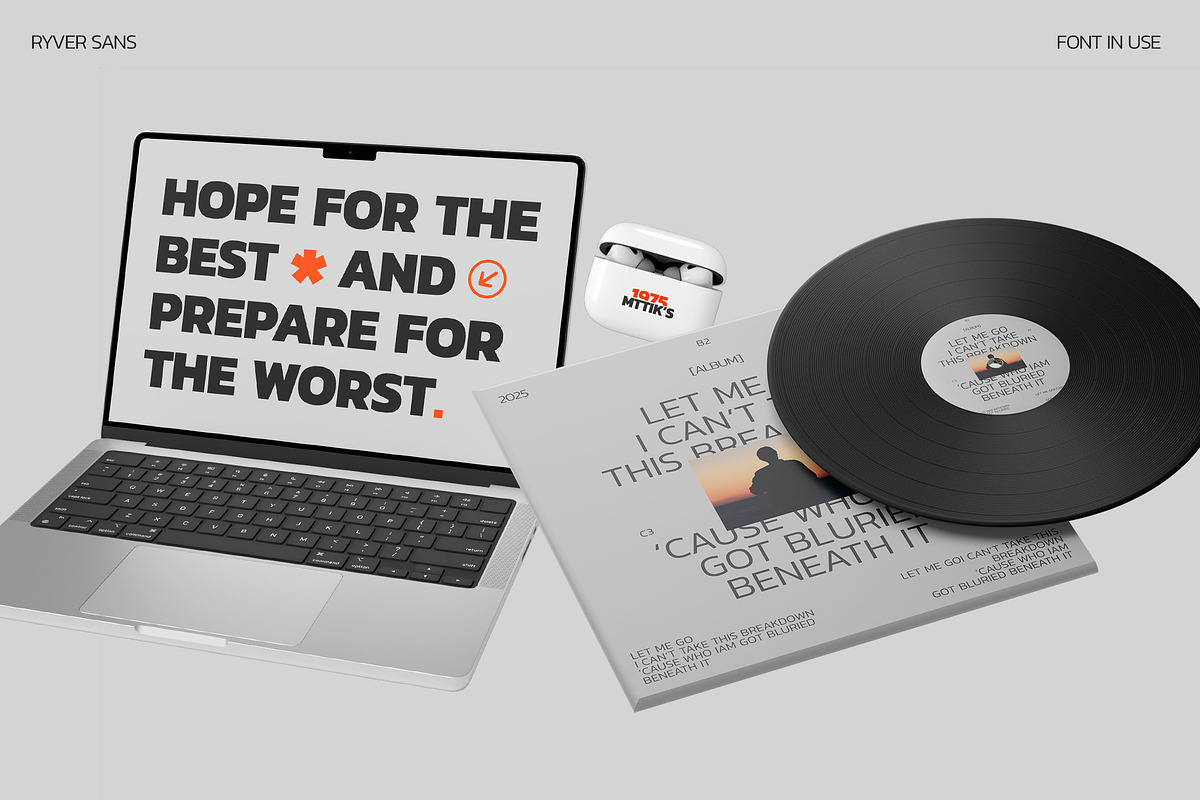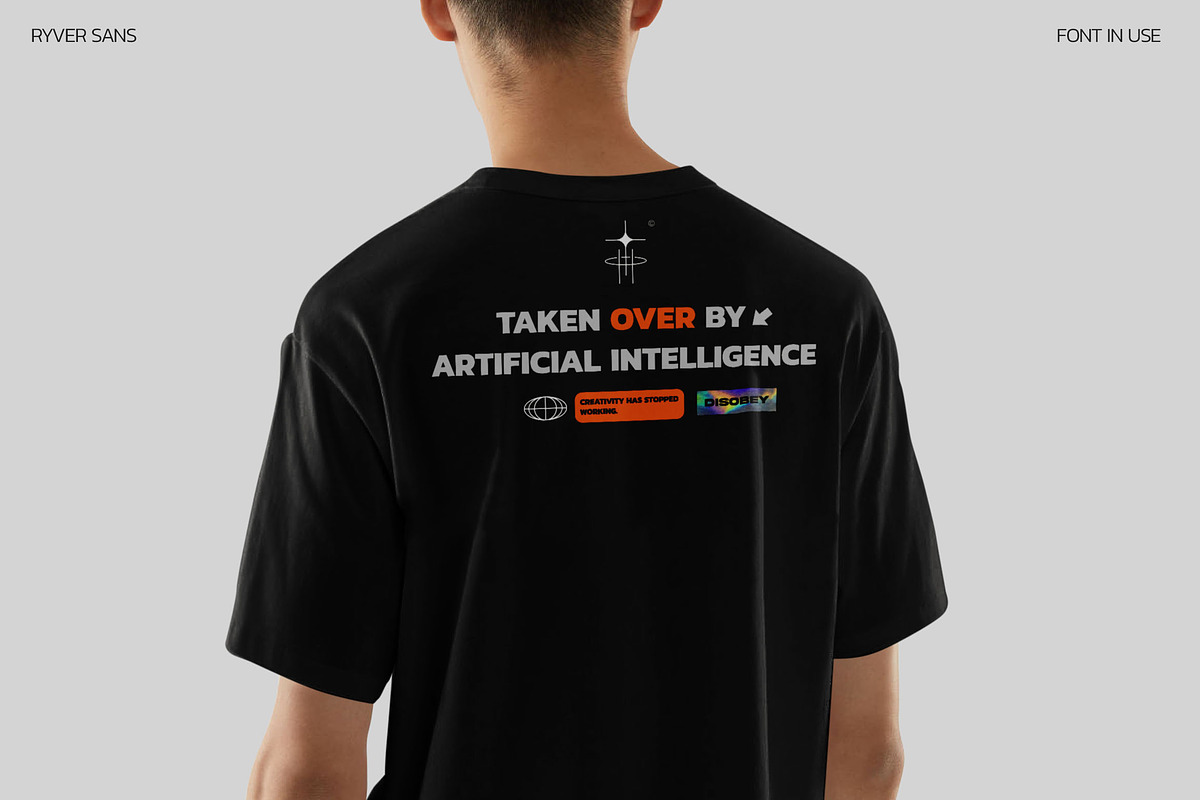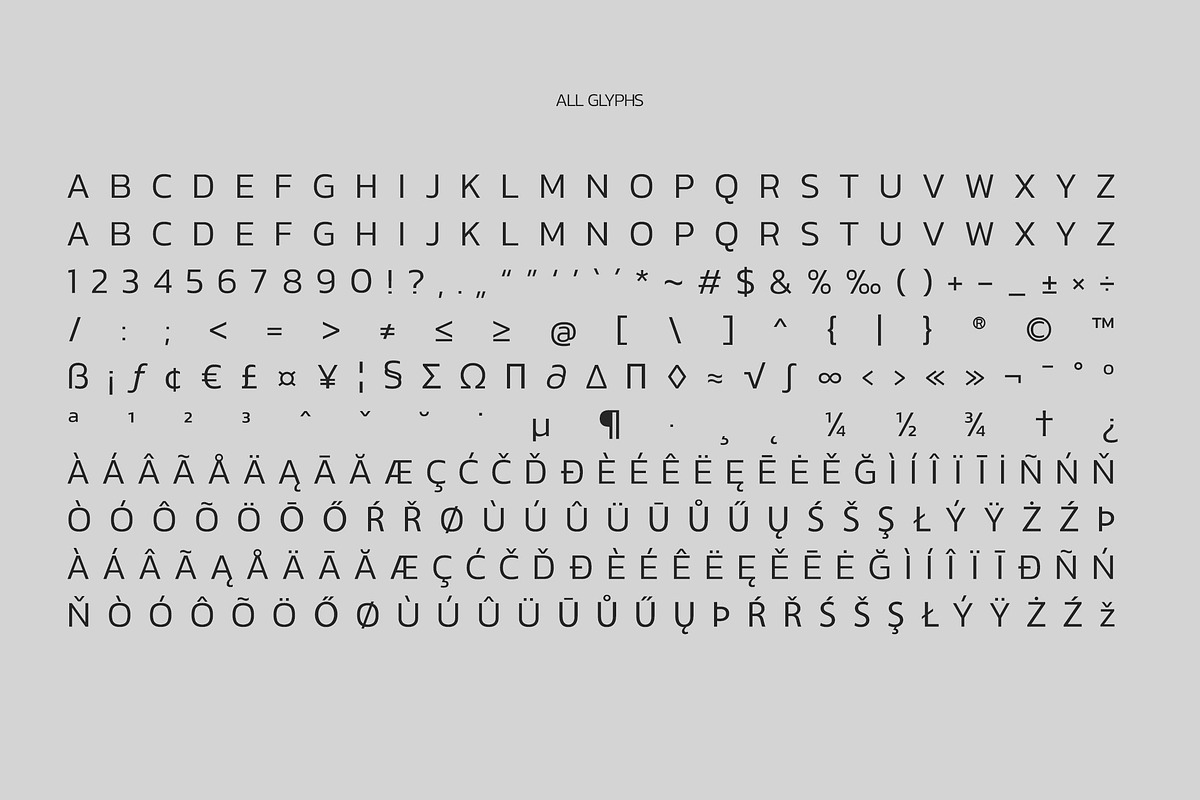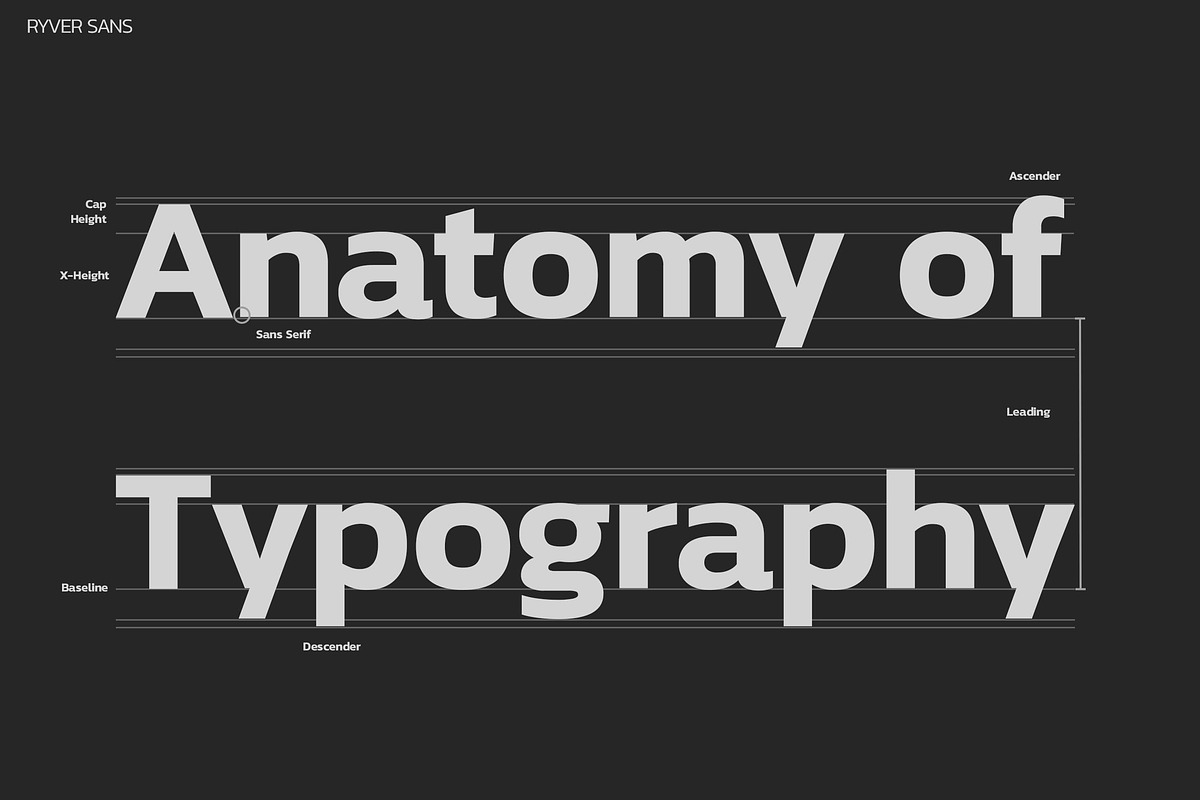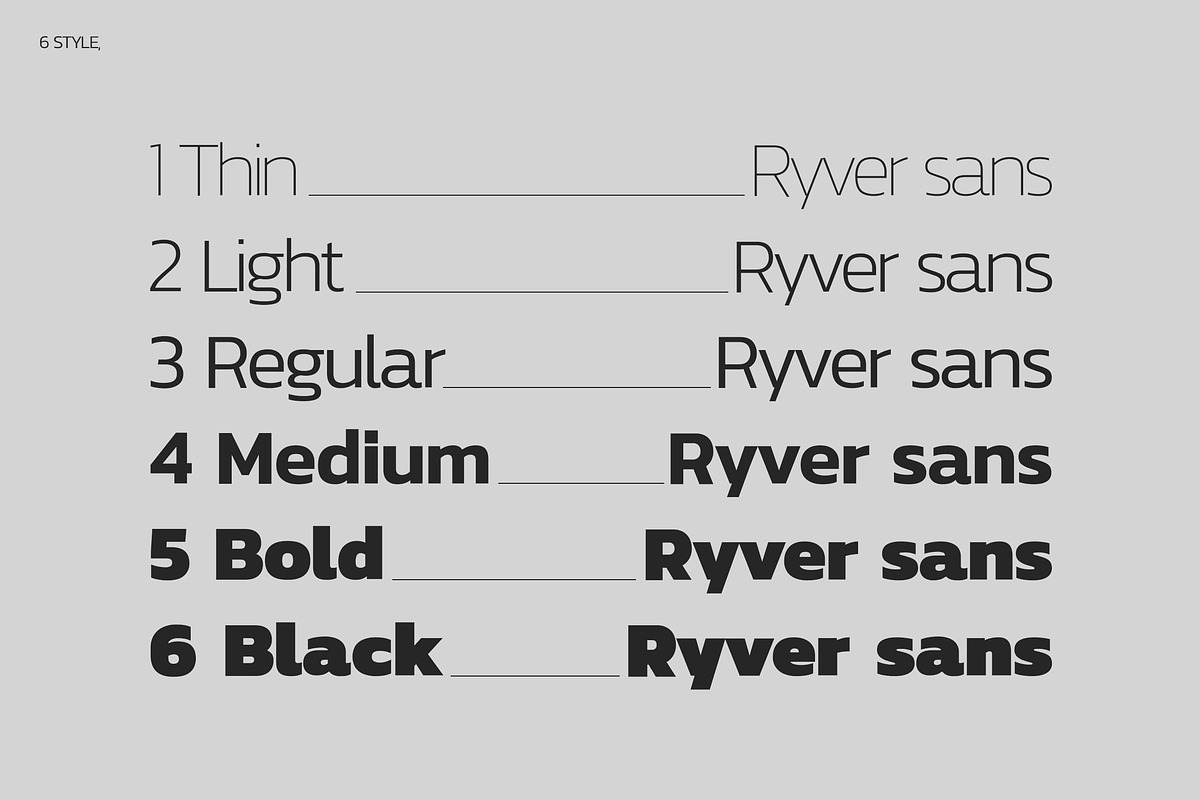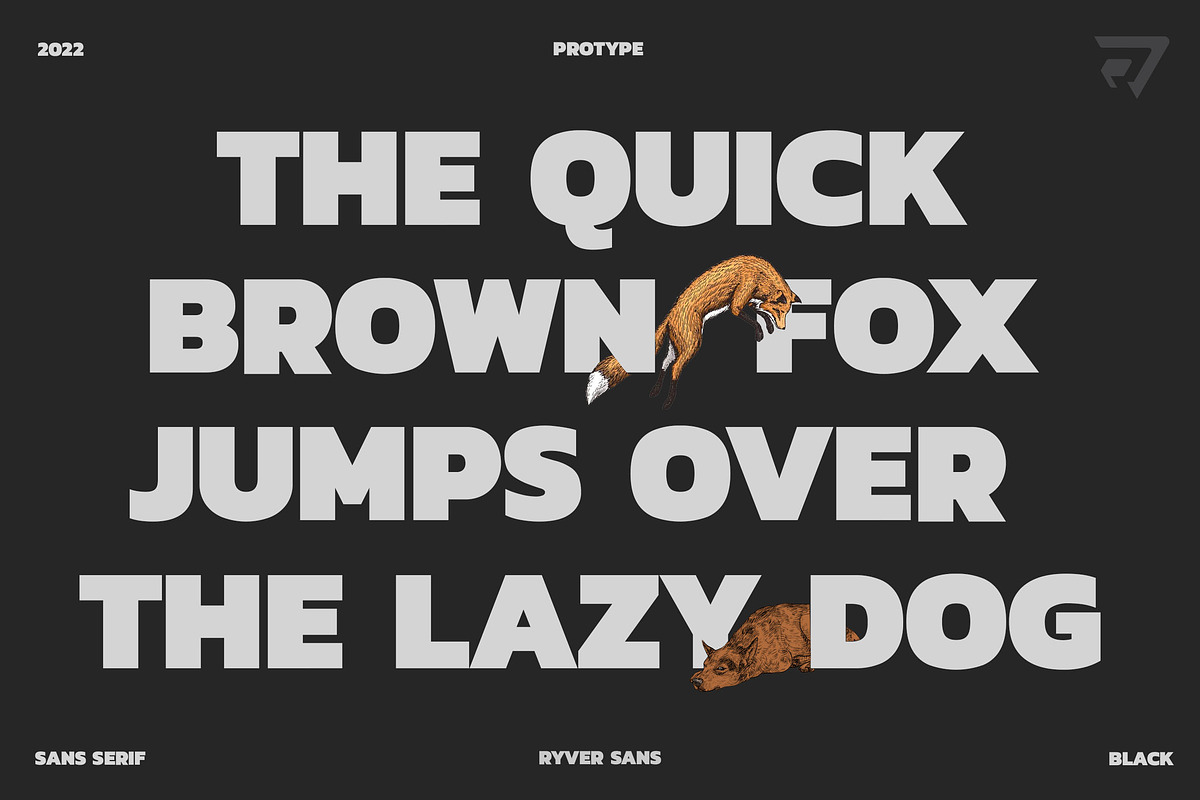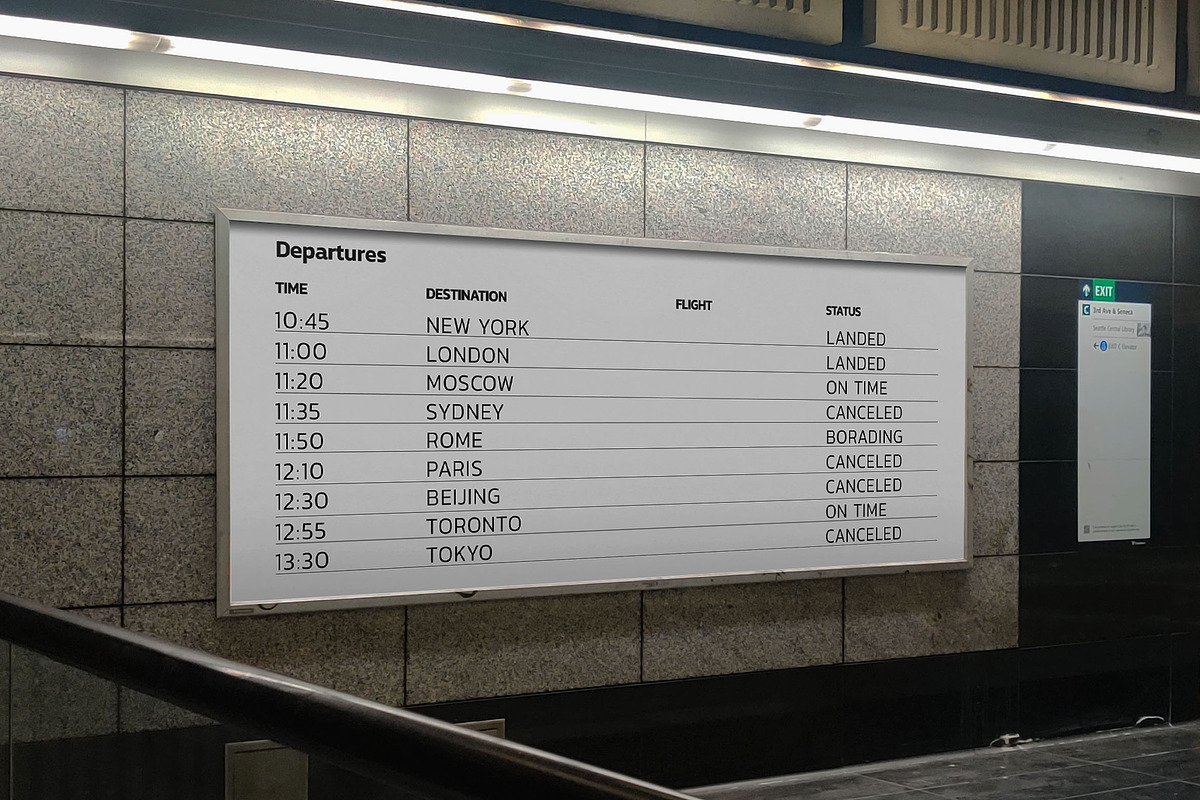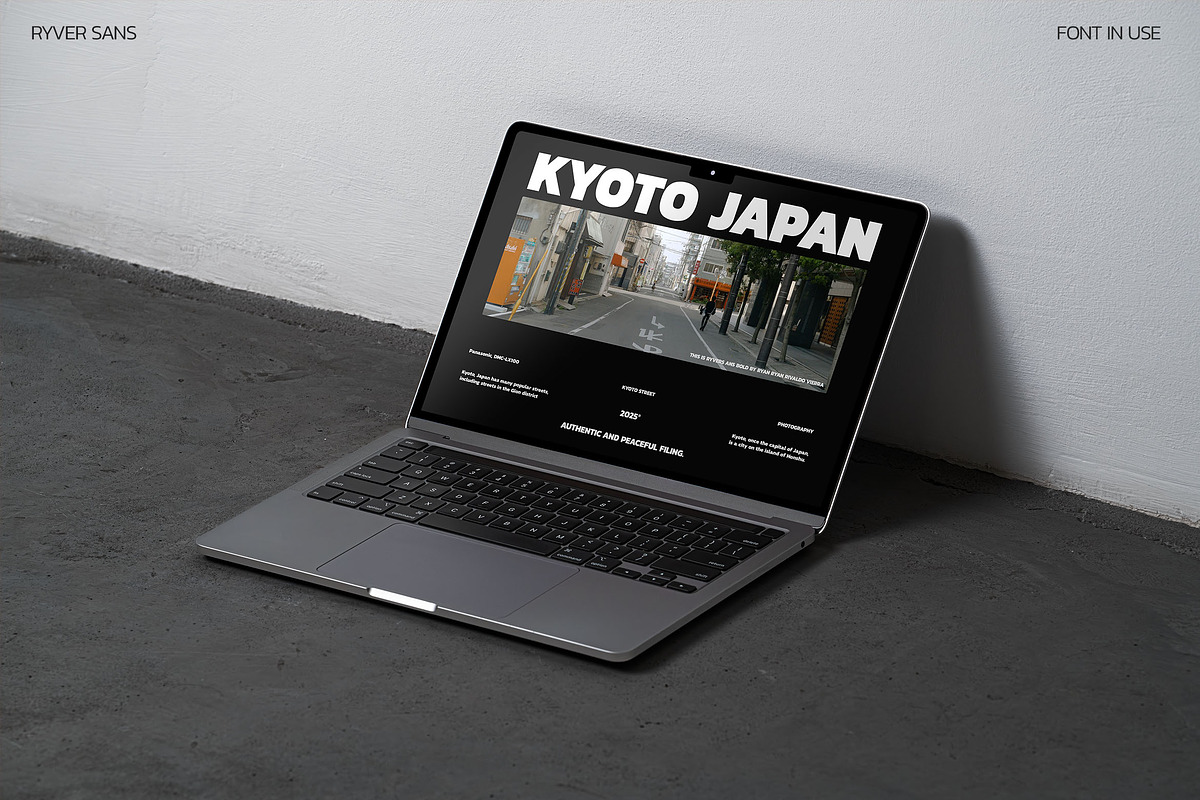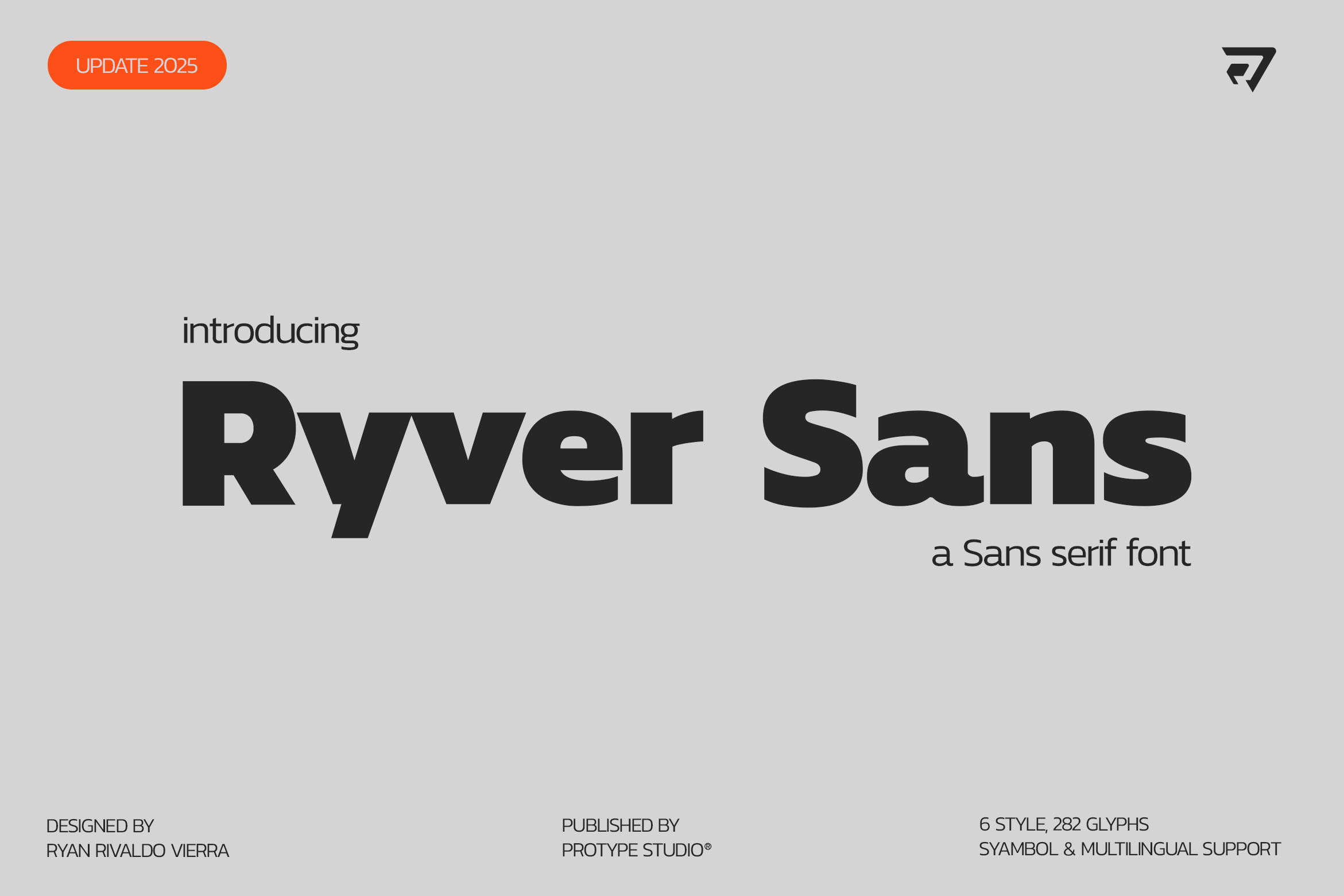
Ryver Sans - Sans Serif font
Ryver Sans is designed for maximum visuals. The six weights are perfect for posters, social media, headlines, large-format print – and anywhere you want attention. This font is very character so it is easy to recognize
- 6 weight font (Thin, Light, Regular, Medium, Bold, Black)
STANDAR abcdefghijklmnopqrstuvwxyz ABCDEFGHIJKLMNOPQRSTUVWXYZ
1234567890!?,.„“”‘’`´*~#$&%‰()+-_±×÷/:;=≠≤≥@[]^{|}®©™ ß¡ƒ¢€£¤¥¦§ΣΩπ∂ΔΠ◊≈√∫∞‹›«»¬¯°ºª¹²³ˆˇ˘˙μ¶·¸˛¼½¾†¿
INTERNATIONAL ÀÁÂÃÅÄĄĀĂÆÇĆČĎÐÈÉÊËĘĒĖĚĞÌÍÎÏĪİÑŃŇÒÓÔÕÖŌŐŔŘØÙÚÛÜŪŮŰŲŚŠŞŁÝŸŻŹÞ àáâãąåäāăæçćčďđèéêëęěēėğìíîïīðñńňòóôõöőøùúûüūůűųþŕřśšşłýÿżźž